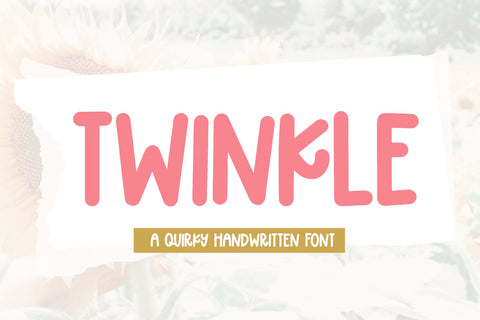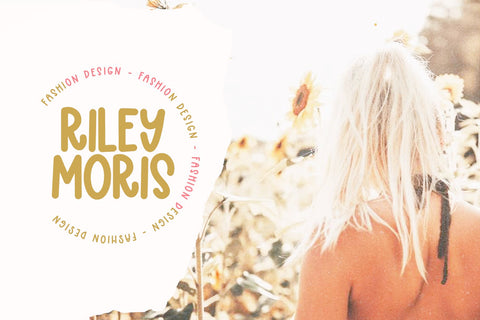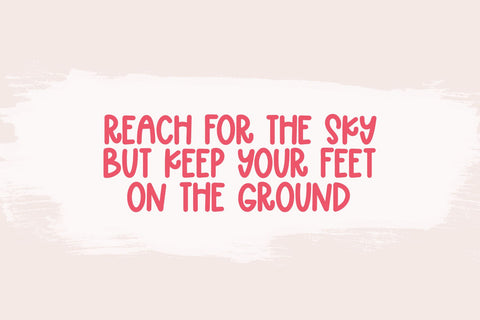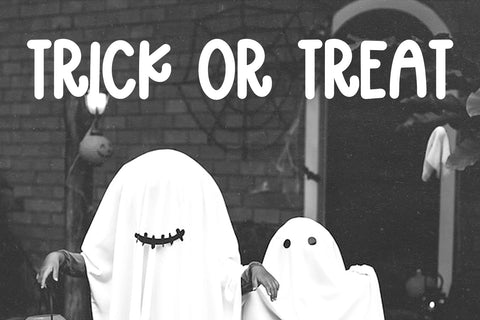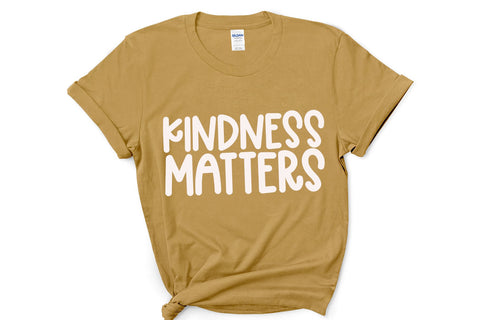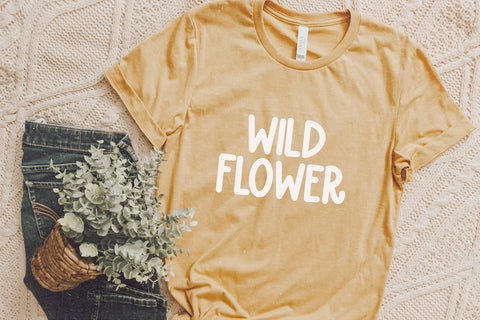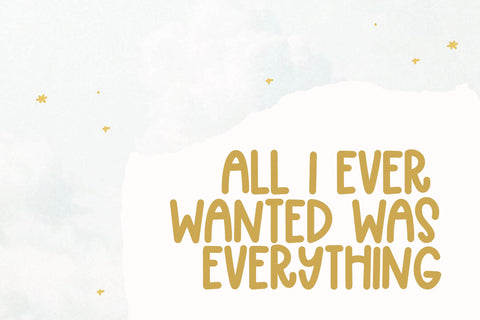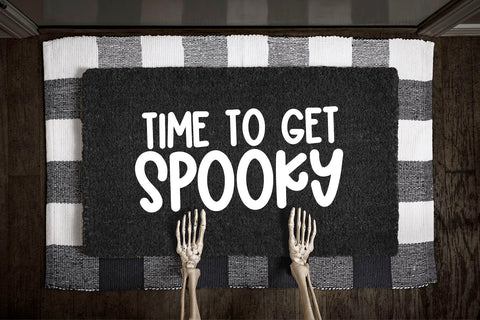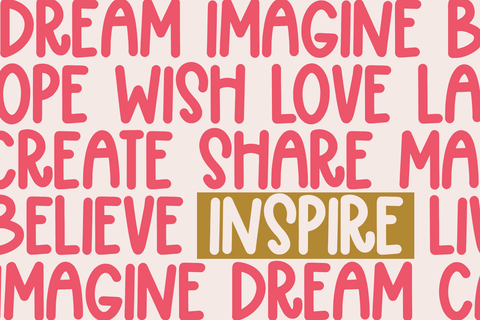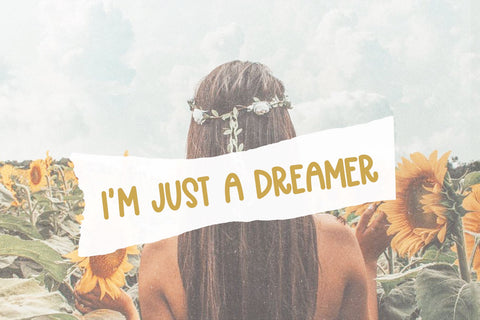
Twinkle - Quirky Handwritten Font
Twinkle is a cute and quirky handwritten font!
This is an all caps font.
Twinkle is perfect for all of your crafting projects!